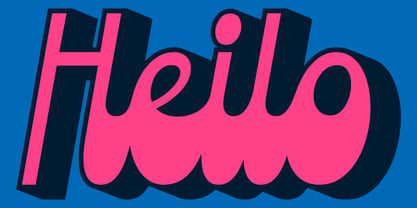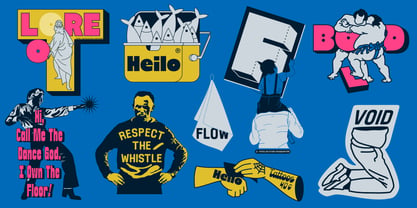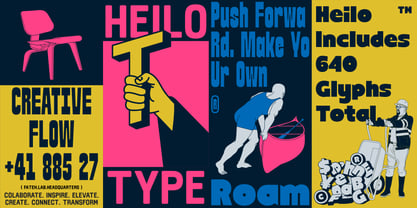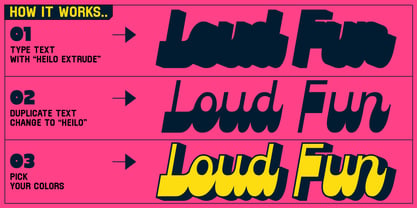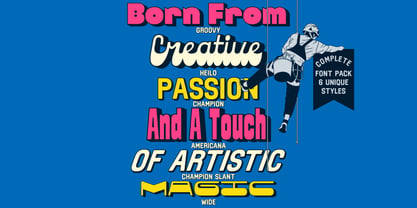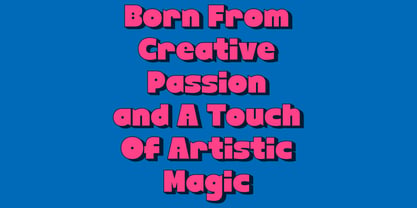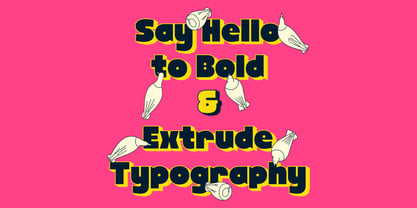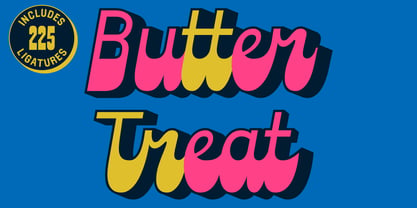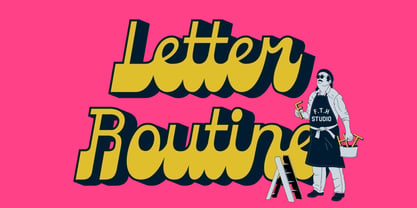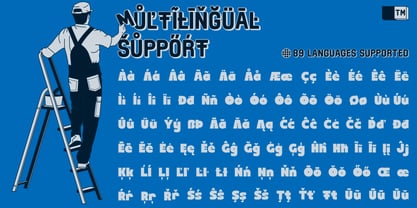
Heilo
von Fateh.Lab
Die Schriftfamilie Heilo wurde von Wisnu Cipto Wibowo entworfen und von Fateh.Lab veröffentlicht. Heilo enthält 12 Stile und Familienpaketoptionen. Mehr über diese Familie
Heilo is a playful vintage extrude display typeface featuring six unique styles, multilingual support, ligatures, stylistic alternates. Its signature extrude style adds bold dimension and eye-catching depth to every design, making it perfect for branding, logos, posters, packaging, apparel, social media, and retro-inspired projects. Get Heilo today and start creating something truly amazing!
Designer: Wisnu Cipto Wibowo
Foundry: Fateh.Lab